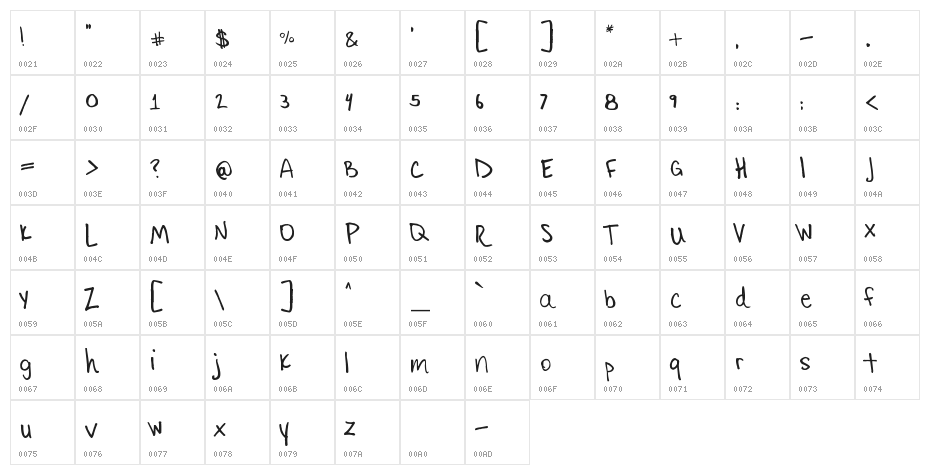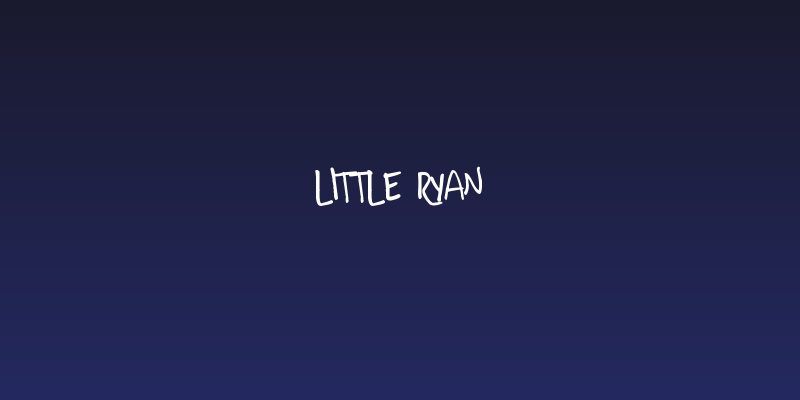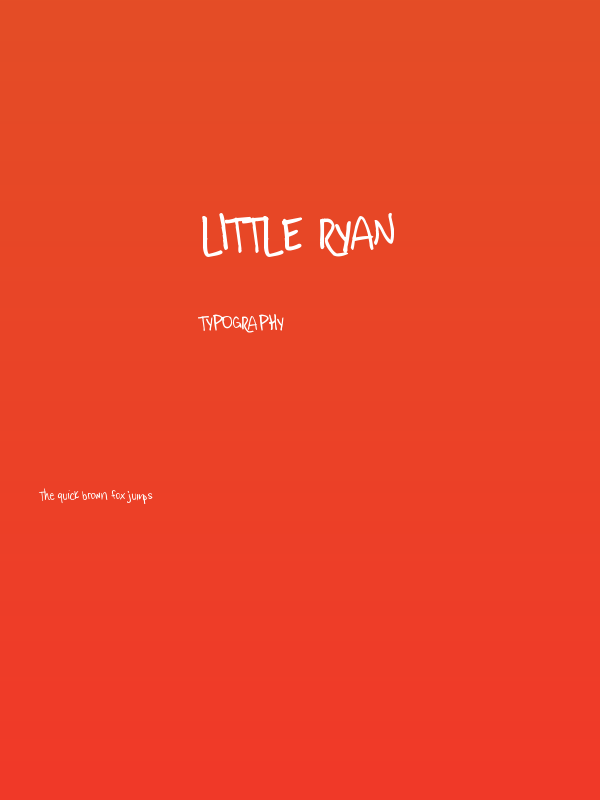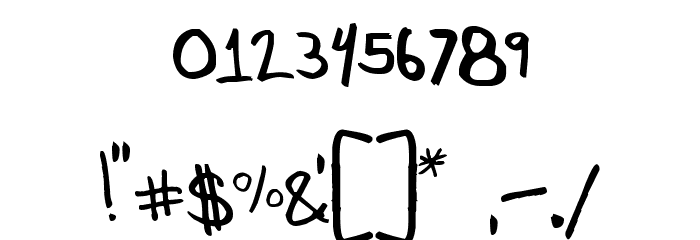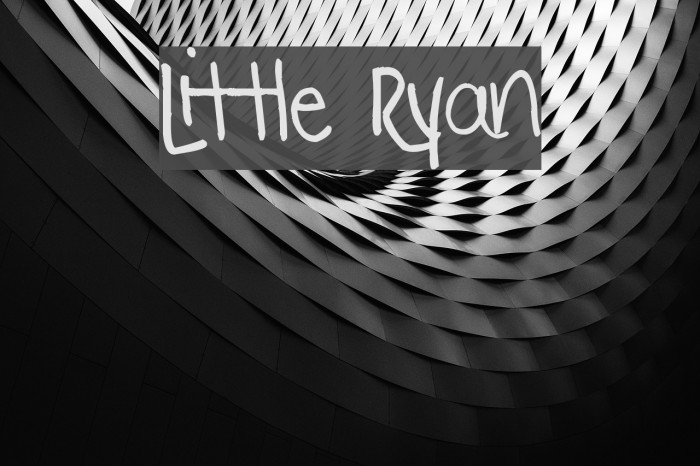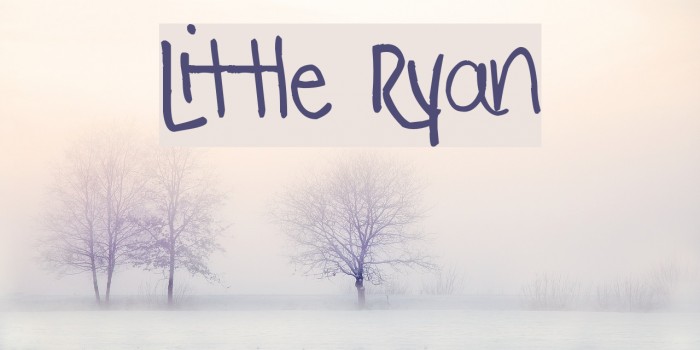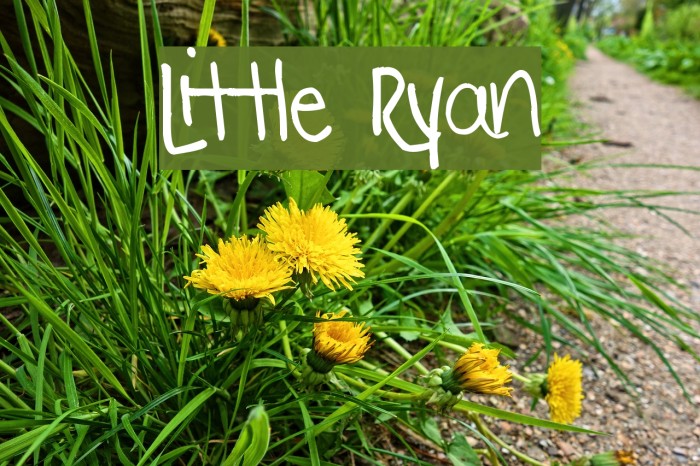
Little Ryan Font
Little Ryan Description
This playful and casual font features a handwritten style with a natural, flowing appearance. The letters are slightly irregular, giving it an authentic and personal touch. The uppercase and lowercase characters maintain a consistent style, with rounded edges and a slight tilt that adds to its informal charm. The numerals and special characters follow the same aesthetic, ensuring a cohesive look across all text elements. This font is perfect for projects that require a friendly and approachable feel, such as children's books, personal blogs, or creative invitations.
| Proposed Projects | Ideal for children's books, personal blogs, creative invitations, and informal branding. |